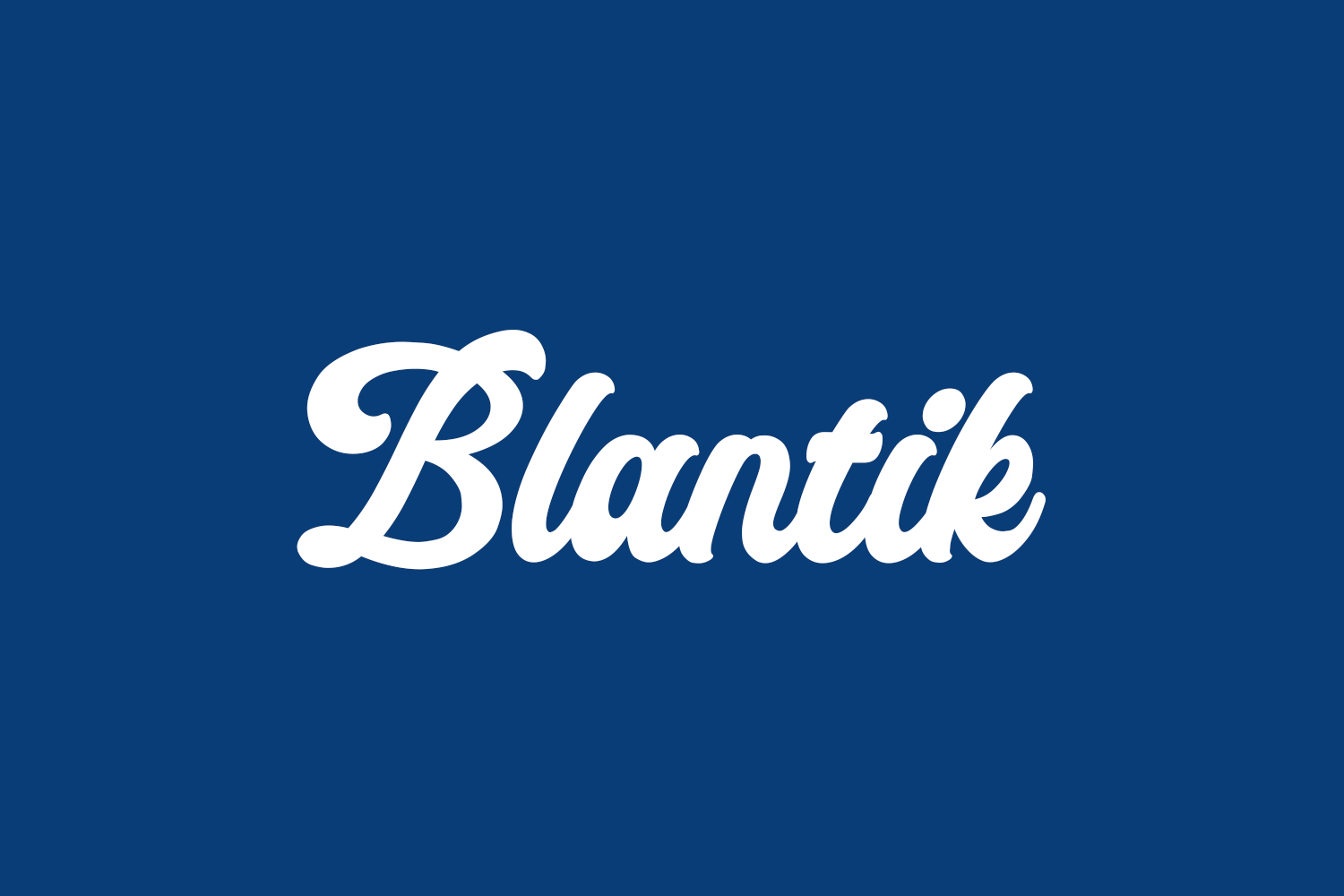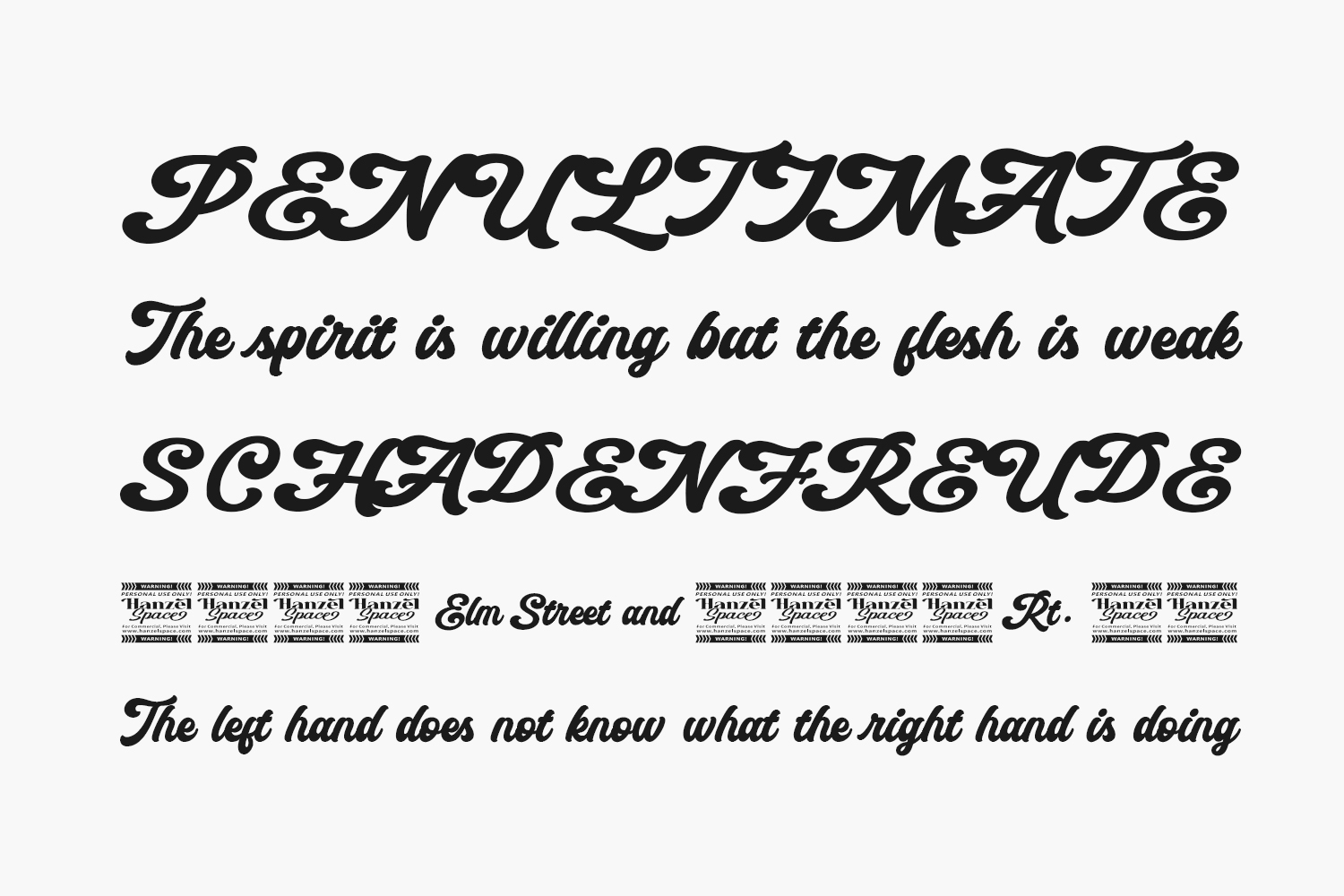
Blantik Free Font, a timeless script font, radiates elegance and refinement. With its graceful curves and artistic embellishments, it evokes the allure of a past era. Ideal for applications such as invitations, branding, and editorial design, this font will infuse a sense of sophistication into every project. Blantik Free Font is a demo and free for personal use only. Please purchase the full version for commercial use.
Designed by Hanzel Space